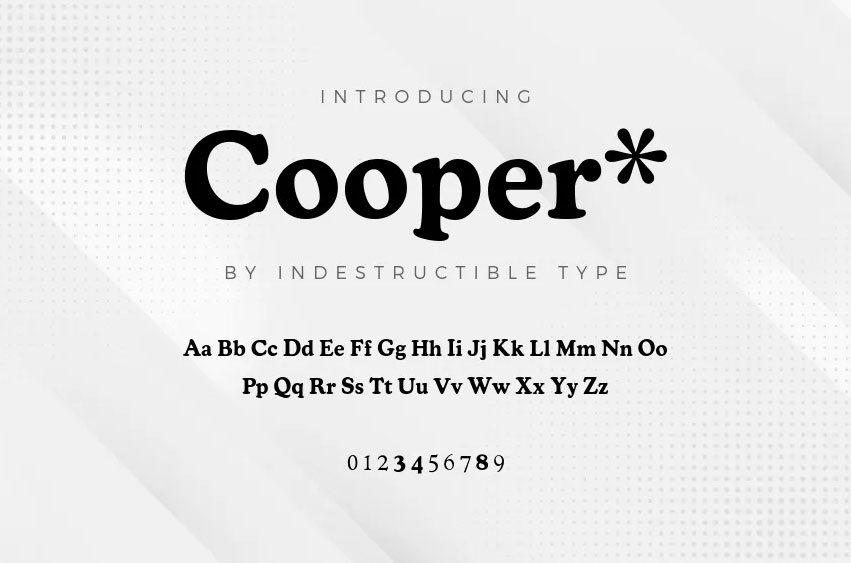
Cooper* Font
Cooper* Font is a revival of the Cooper series designed by Oswald Cooper and released by Barnhart Brothers & Spindler in the 1920s. The font is created by Owen Earl, the creator of the font foundry, Indestructible Type.
Cooper* seeks to bring back the beauty of Cooper, the regular weighted counterpart of the more widely known Cooper Black. With an organic, Art Nouveau feel, Cooper has curved lines and delicate stems that create a legible and beautiful font suitable for text passages in books or other documents.
Cooper* is a meticulously researched and historically accurate font that revives the forgotten family of fonts, making sure the delightful details of the original Cooper series are not forgotten forever.